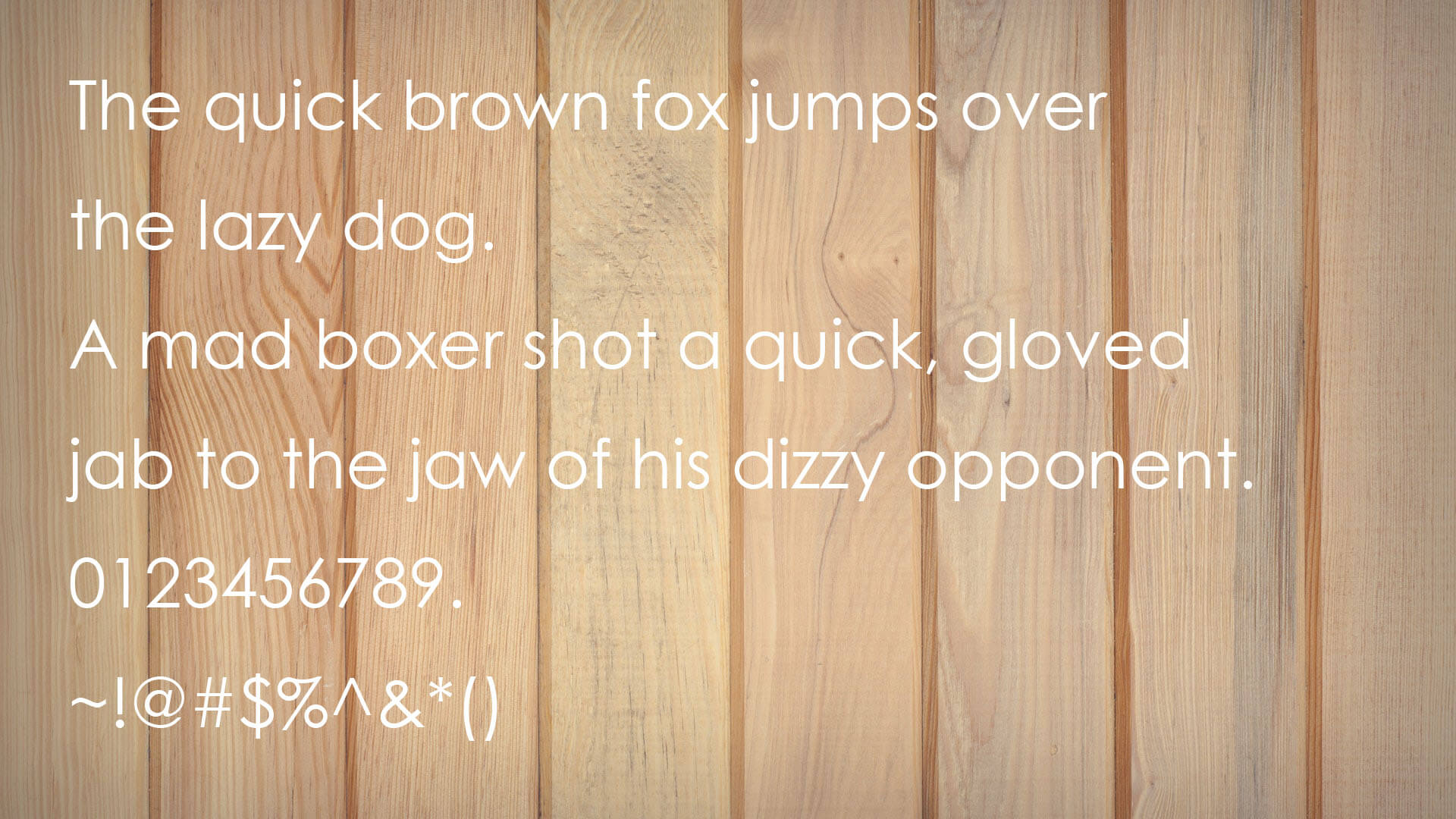
Let’s introduce you to one of the unique fonts called the Weezer font. It is a sans serif typeface. This beauty has a very simple design. It contains spacing and proportion between the characters that’s why it is very easy for the reader to read this type of text.
The medium contrast feature of this font also increases its visibility. So this classic font is compatible with most of the design work. Both TTF and OTF font formats are available.
Weezer Font Family
Type | Sans Serif |
It can be paired with some other stylish font to make a perfect combination to use in different types of design projects.